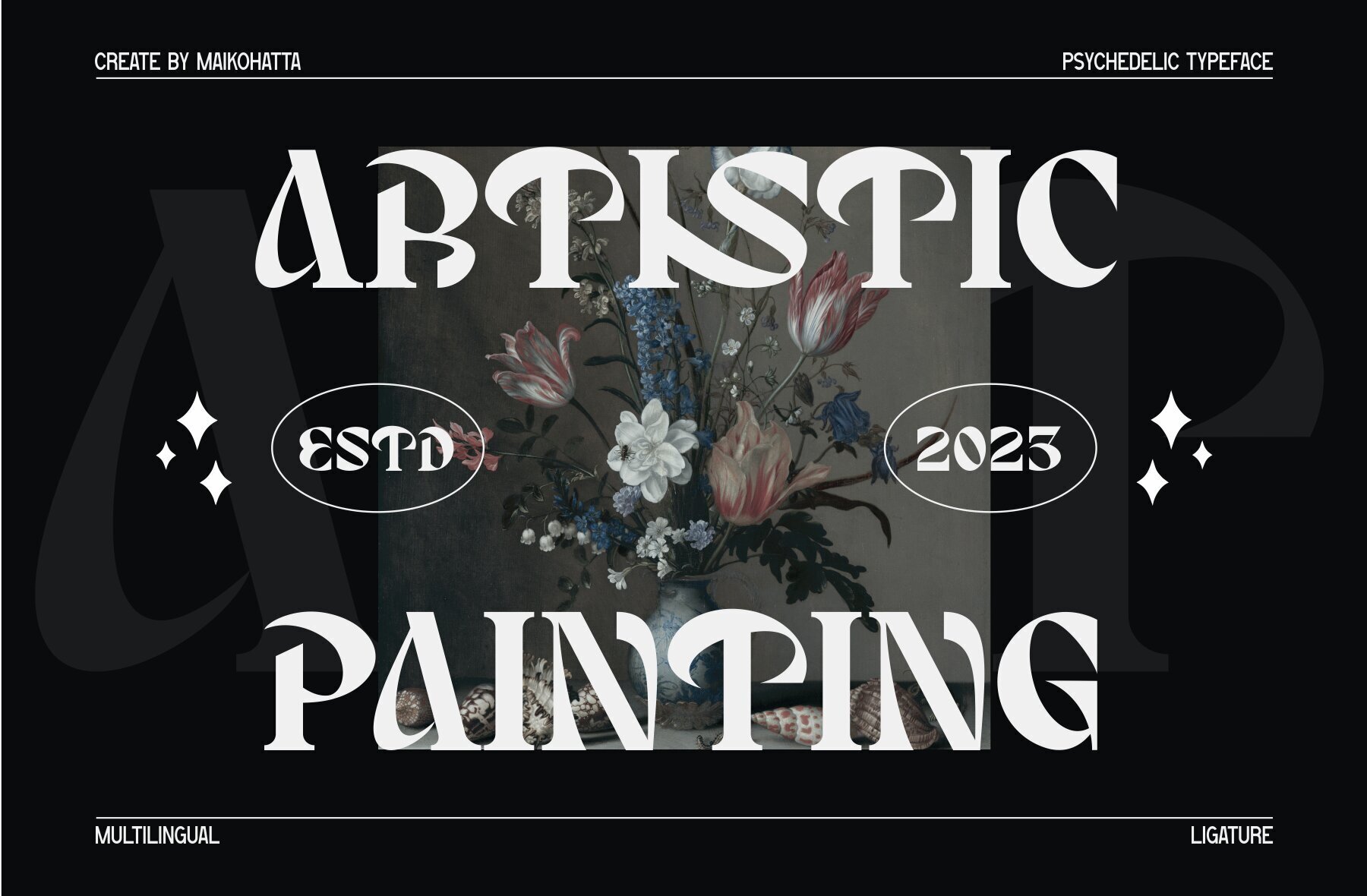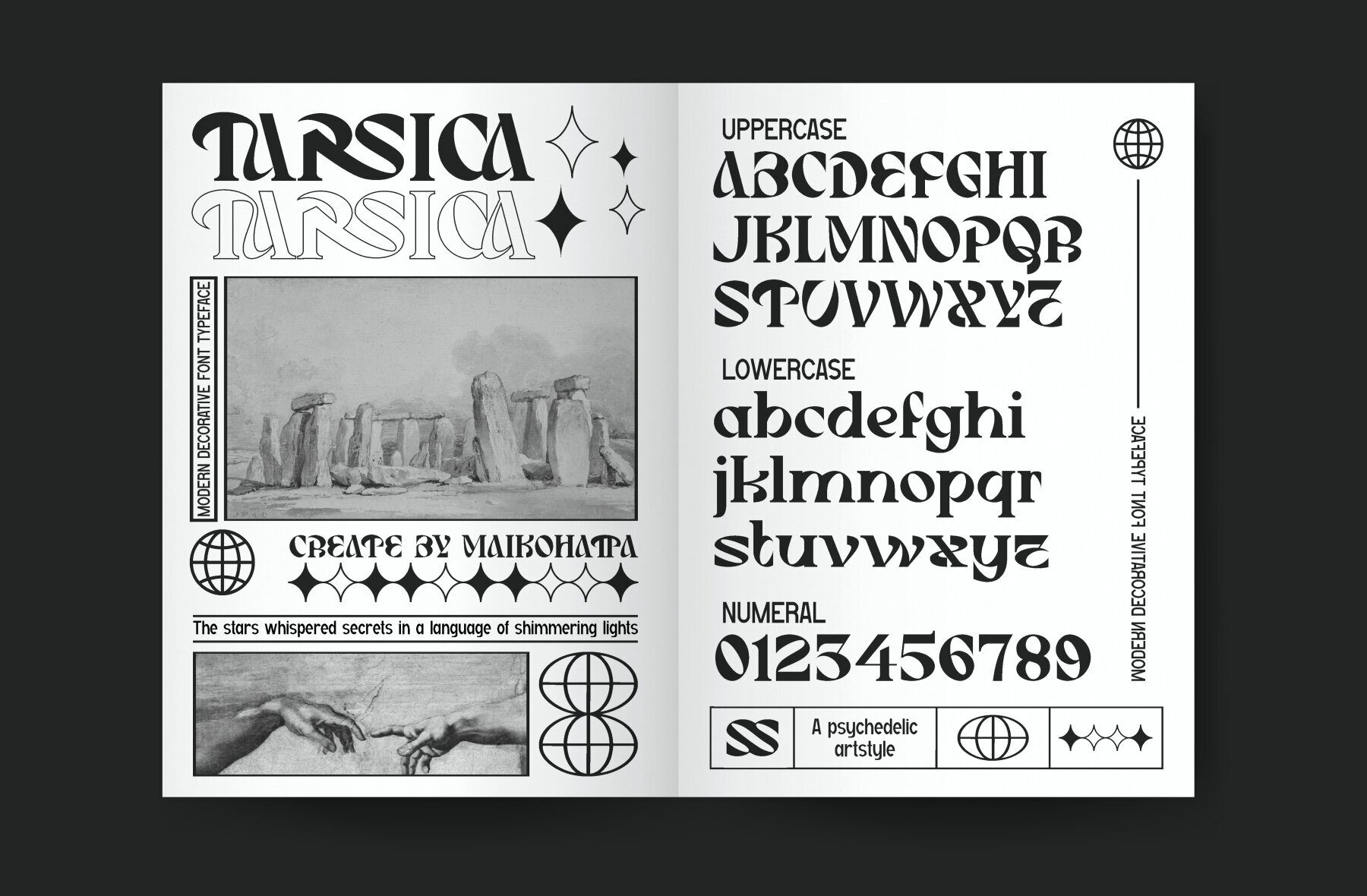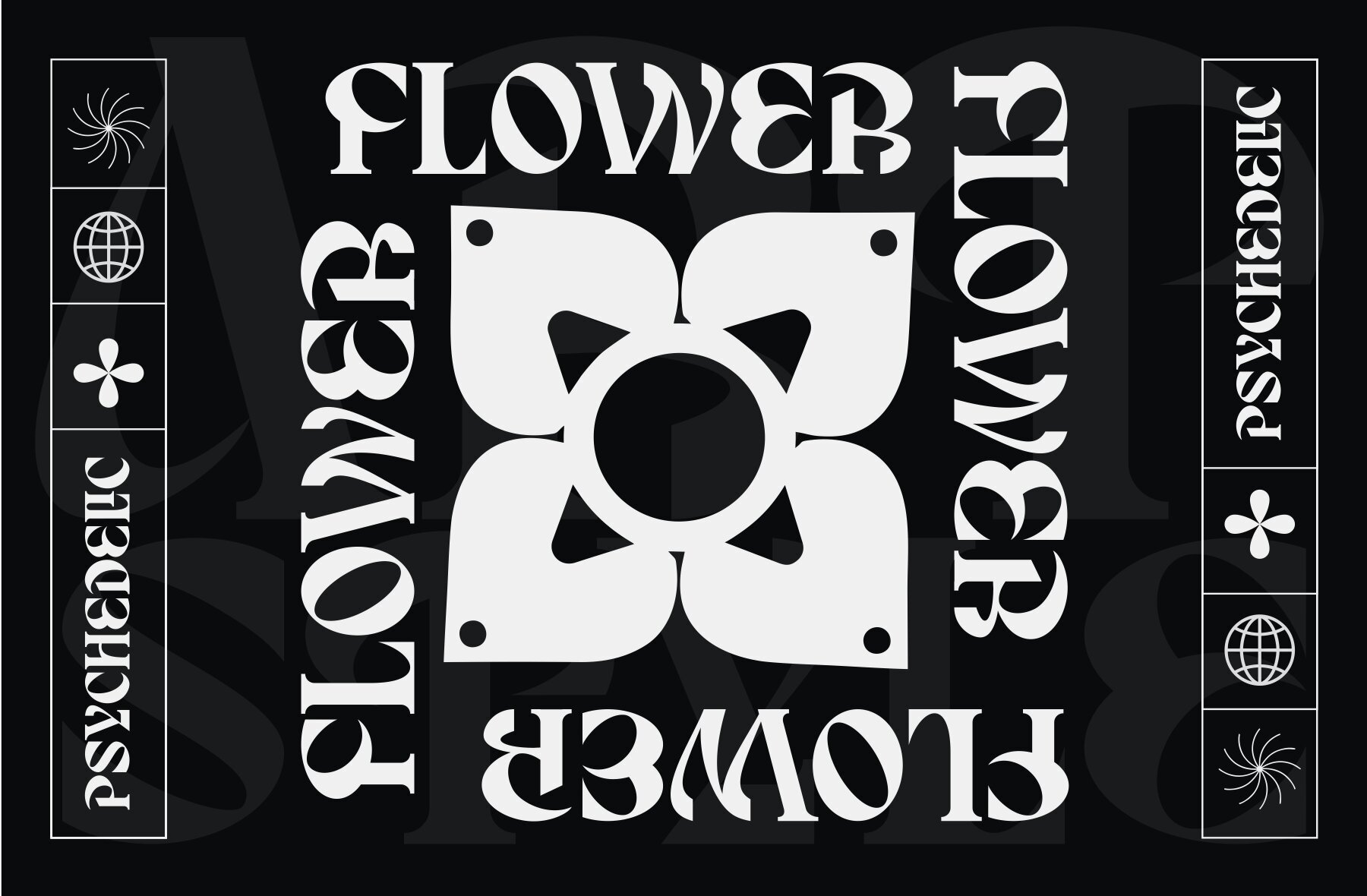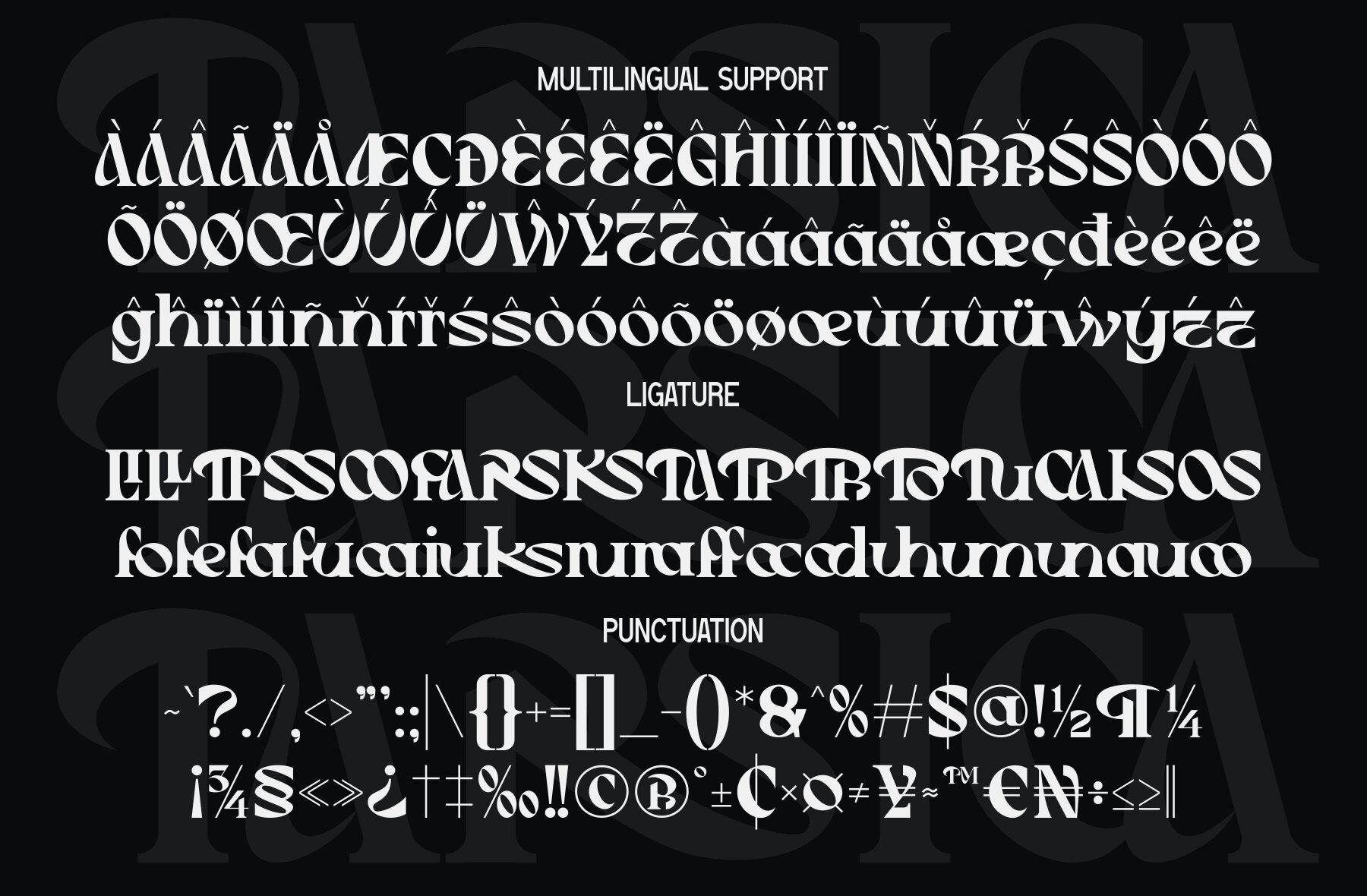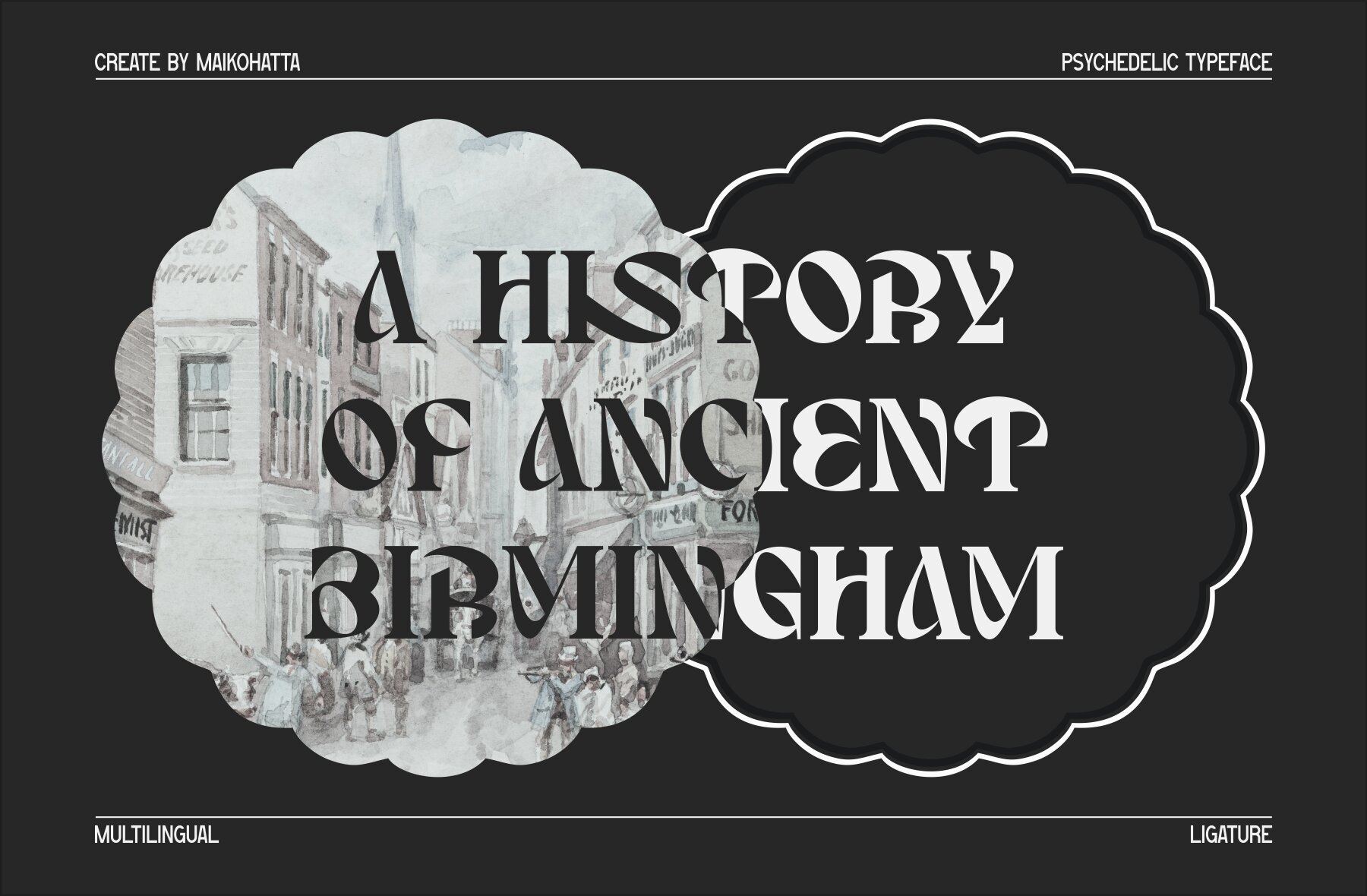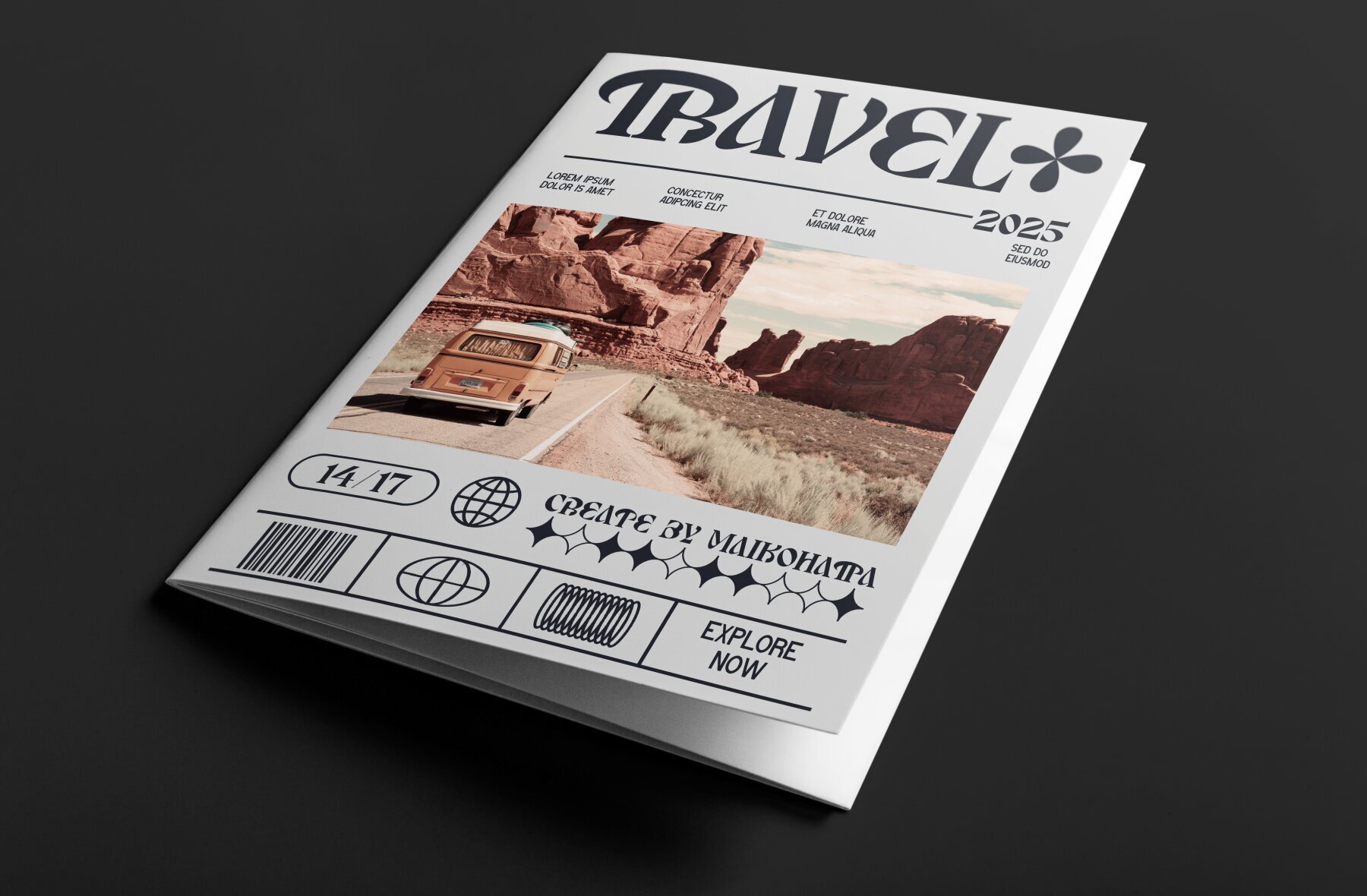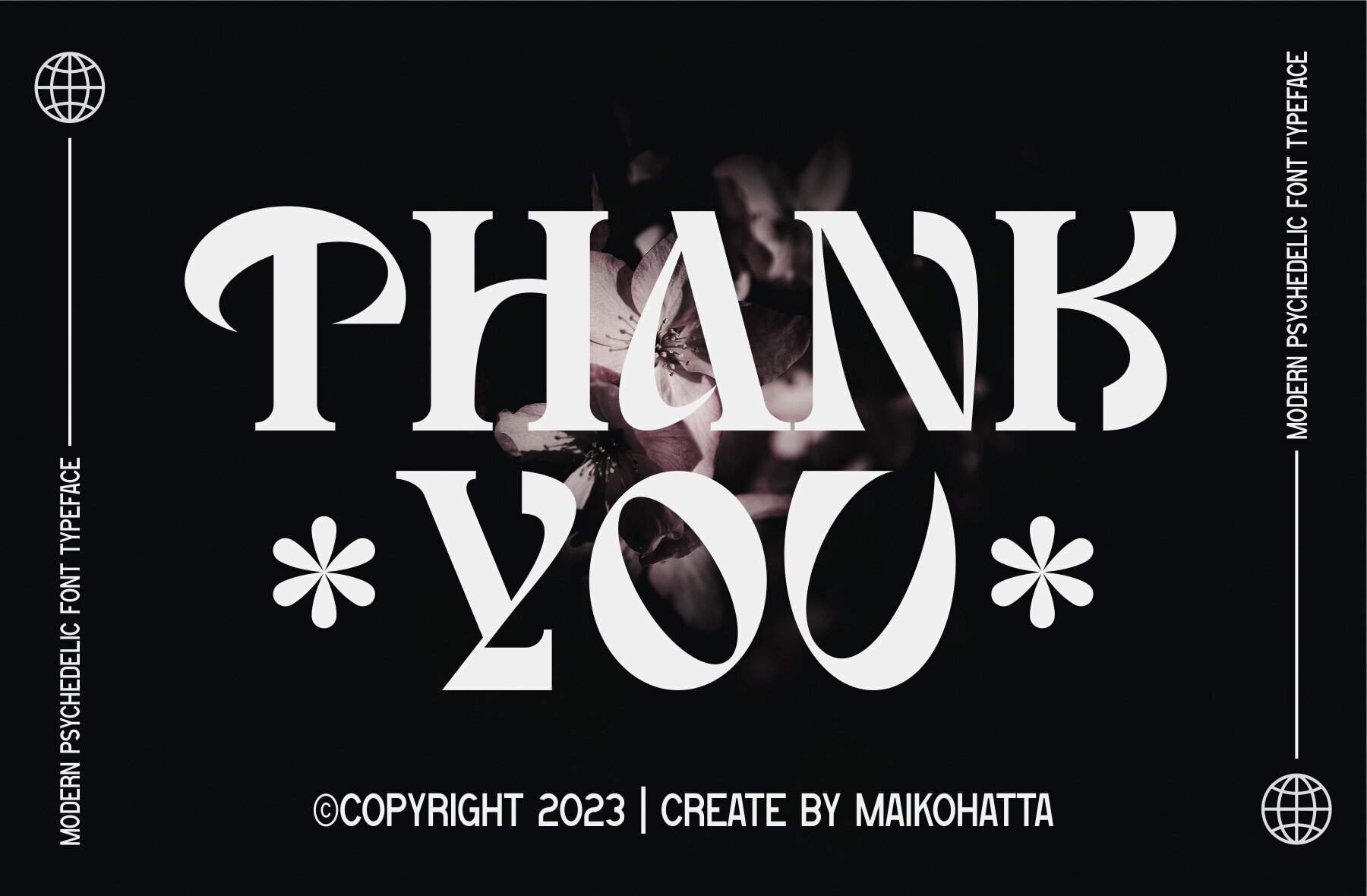
Tarsica Font
Tarsica Regular
Tarsica is a modern, stylistic psychedelic font designed to invigorate your projects with its energetic and abstract characteristics. Featuring a contemporary design perspective, Tarsica offers a captivating visual experience that is ideal for designers looking to infuse their work with adventure and creativity.Tarsica: A Psychedelic Typeface for Creative Expression